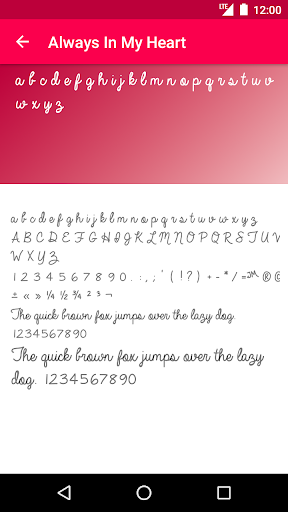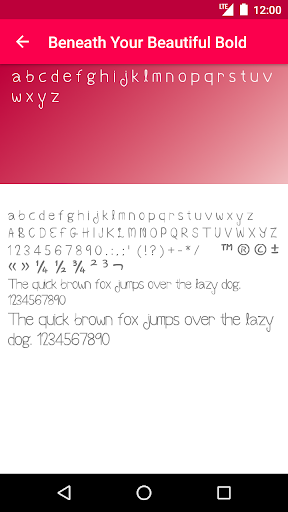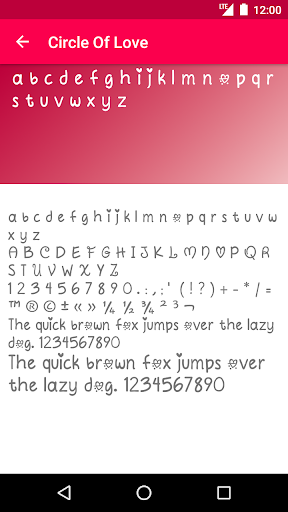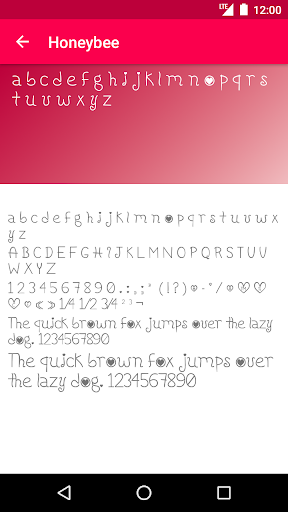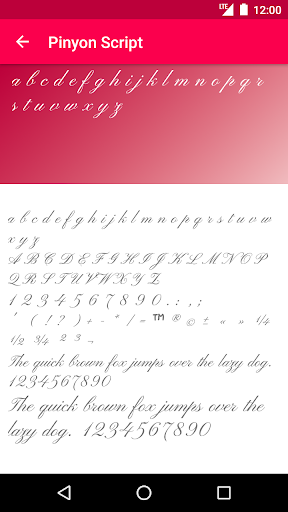
Romance Fonts Application is a free font pack with romance expressive font style which you can install in your android devices. Enjoy this font pack for Samsung Galaxy,Oppo and HTC smartphones.